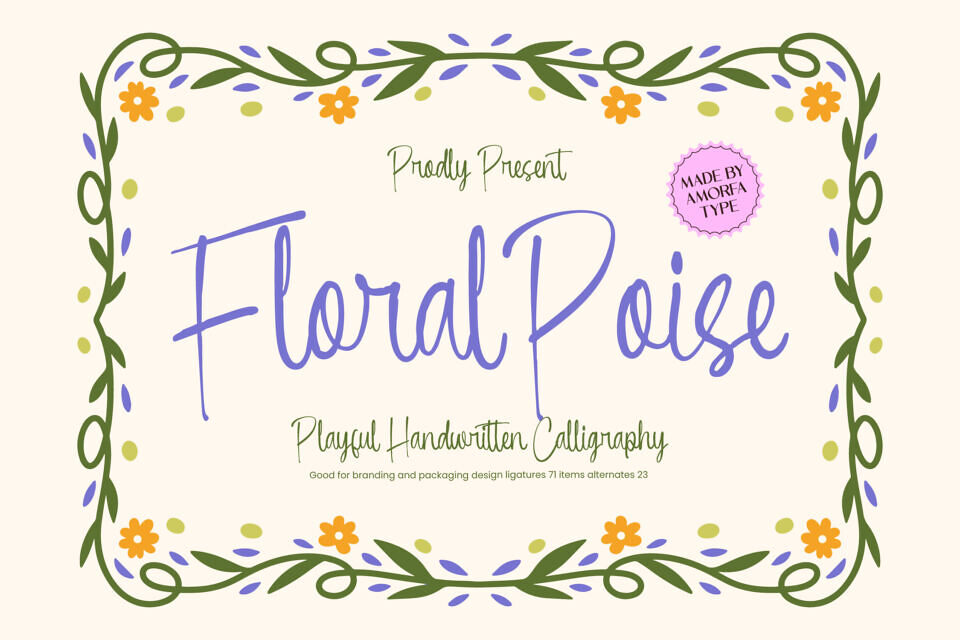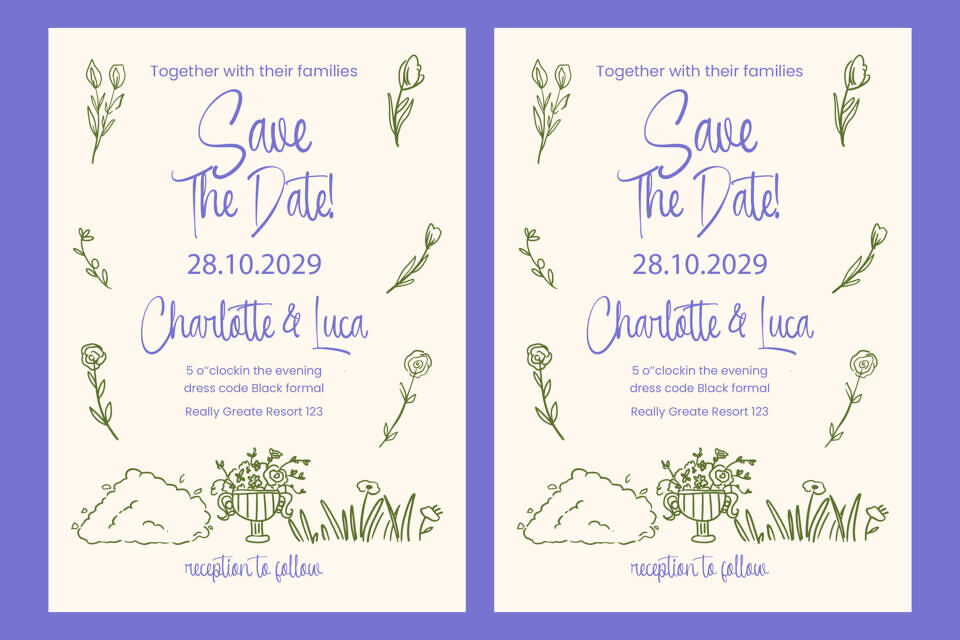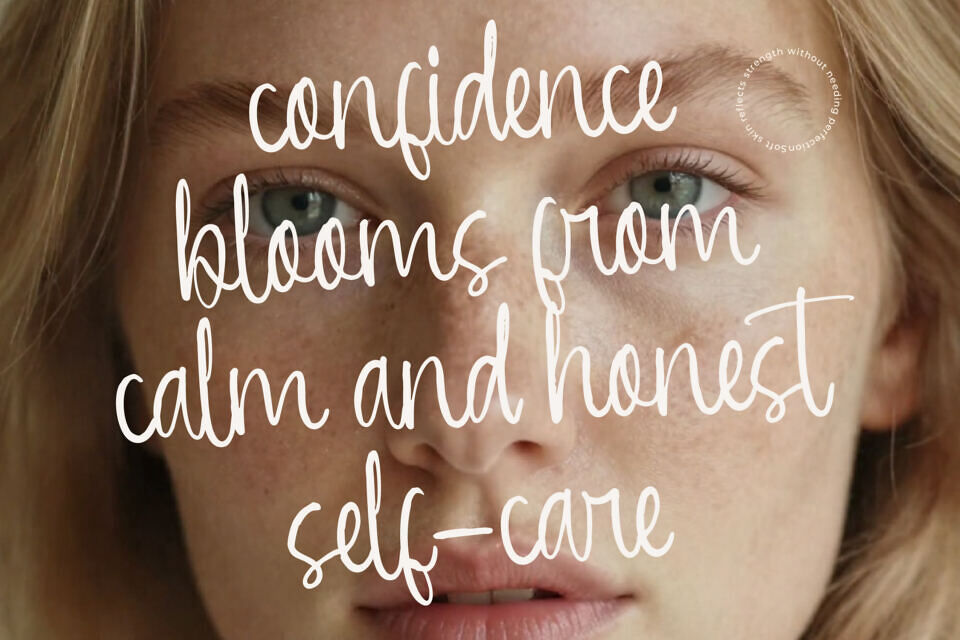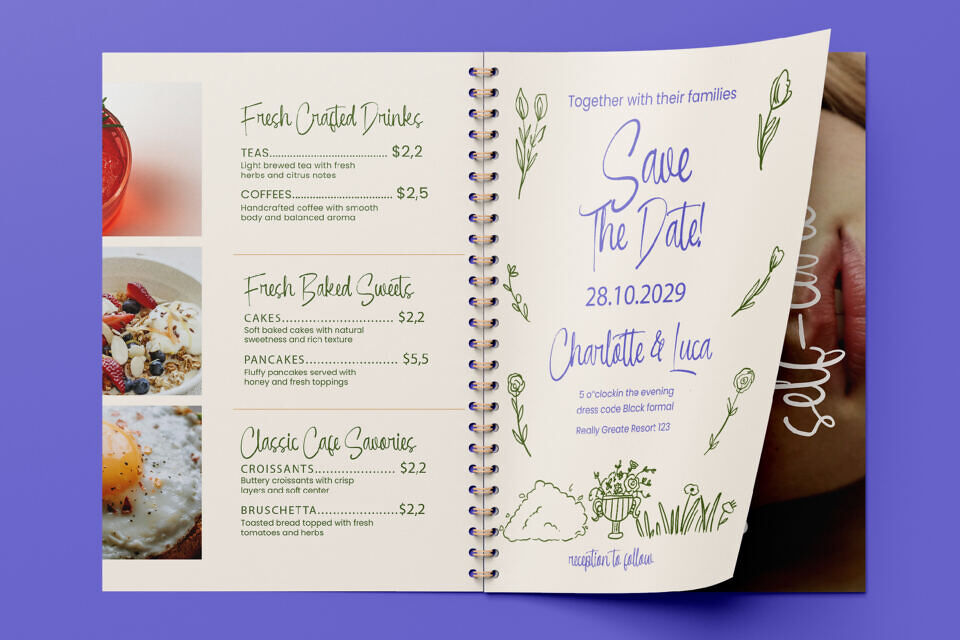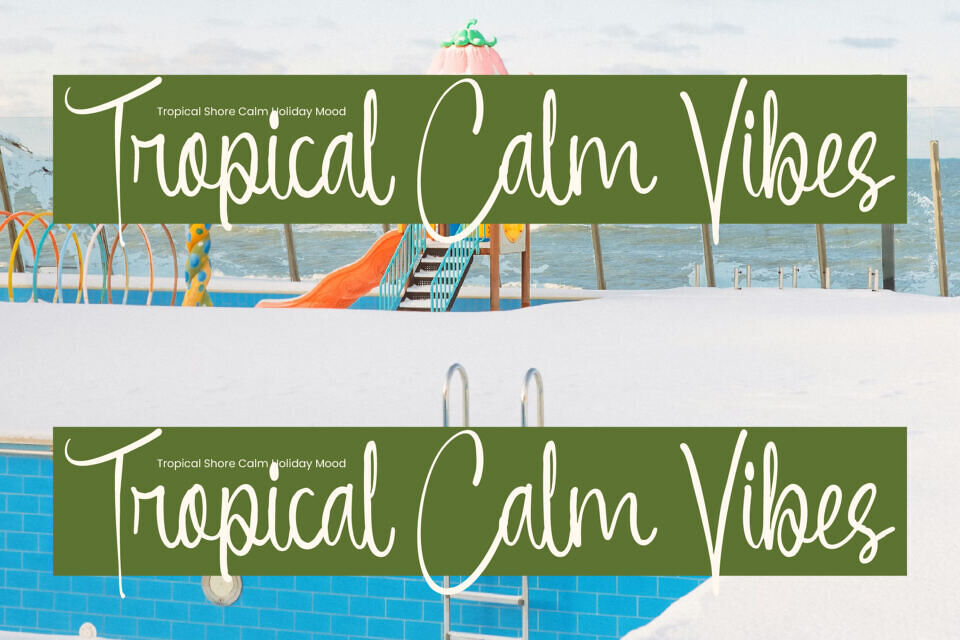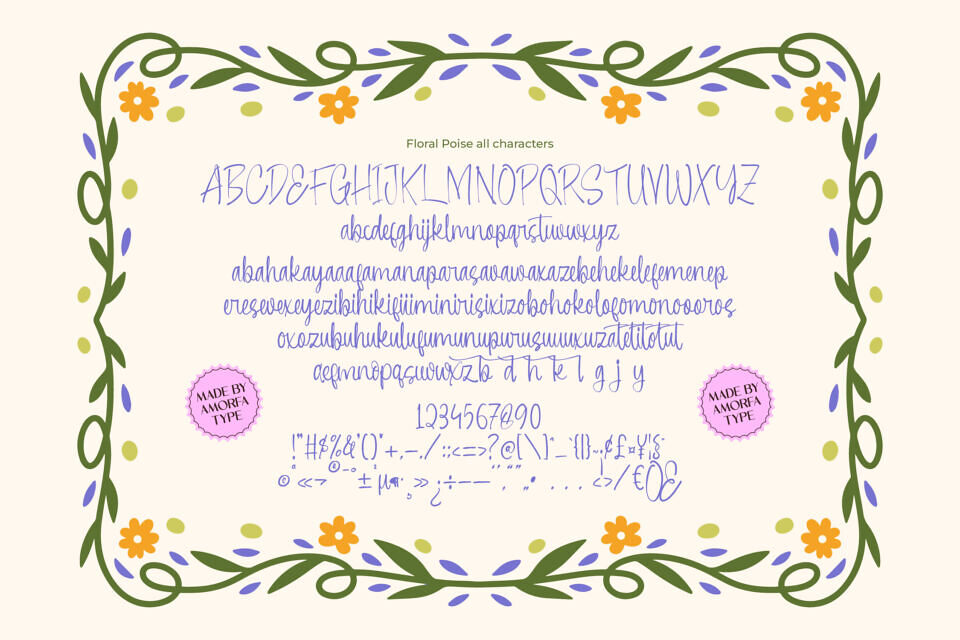
Floral Poise is an enchanting, playful handwritten calligraphy font that blends organic elegance with a spirited, whimsical touch. Designed to capture the fluid motion of natural handwriting, it brings a sense of authentic artistry and personal warmth to every stroke.
With its graceful curves and expressive character, Floral Poise is the perfect choice for projects that require a feminine, high-end, and sophisticated aesthetic. Whether you are crafting a luxury brand identity, delicate packaging, or heartfelt stationery, this font adds a rhythmic beauty that feels both curated and effortless.